In today’s highly competitive fashion world, font for clothing brand design plays a massive role in defining your brand identity. Your font is often the first thing customers notice, even before they touch your fabric or explore your collection. The right typography can convey your brand’s essence — whether it’s bold and edgy, minimalist and sophisticated, or playful and creative.
In this comprehensive guide, we’ll explore what makes a font perfect for clothing brands, showcase the best fonts for clothing brands, and offer essential tips to help you choose a typeface that amplifies your brand message and makes a lasting impact.
Fonts are a critical part of your brand’s visual language. They silently communicate who you are, what you stand for, and who your target customers should be. Here’s what to consider when choosing a font for clothing brand identity:
Finding the right typeface is essential if you want your clothing brand to be memorable, recognizable, and successful.
Let’s dive into some of the most stylish and impactful fonts that have proven to work brilliantly for clothing and apparel brands, from luxury to streetwear.
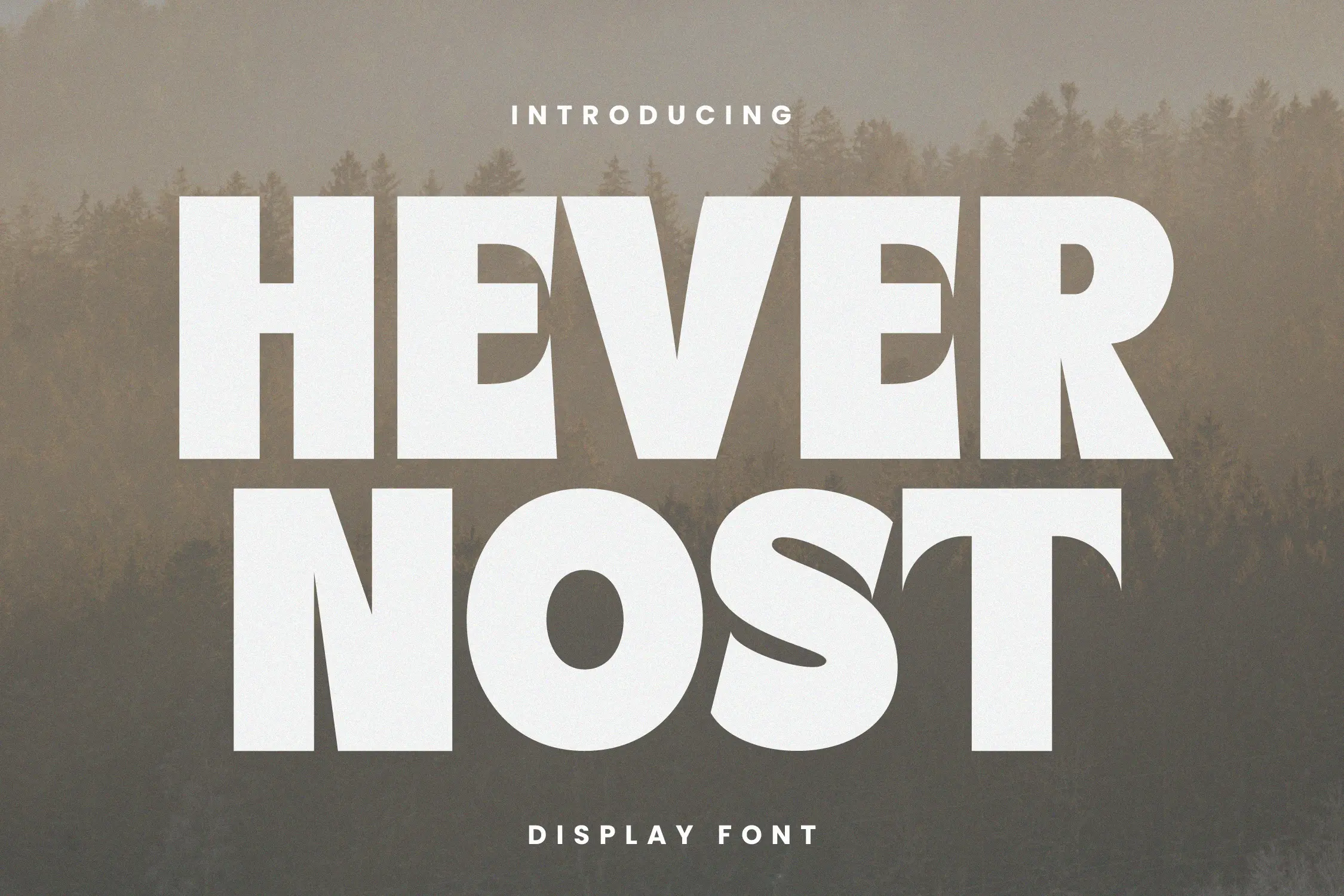
Havernost offers a mix of modernity and tradition with its classic serif structure blended with contemporary edges. It’s perfect for brands that wish to evoke a sense of craftsmanship, trust, and style. Havernost works particularly well for high-end men’s fashion, leather accessories, and urban boutique brands. It maintains professionalism without feeling overly stiff, making it a versatile font for clothing brand designs.
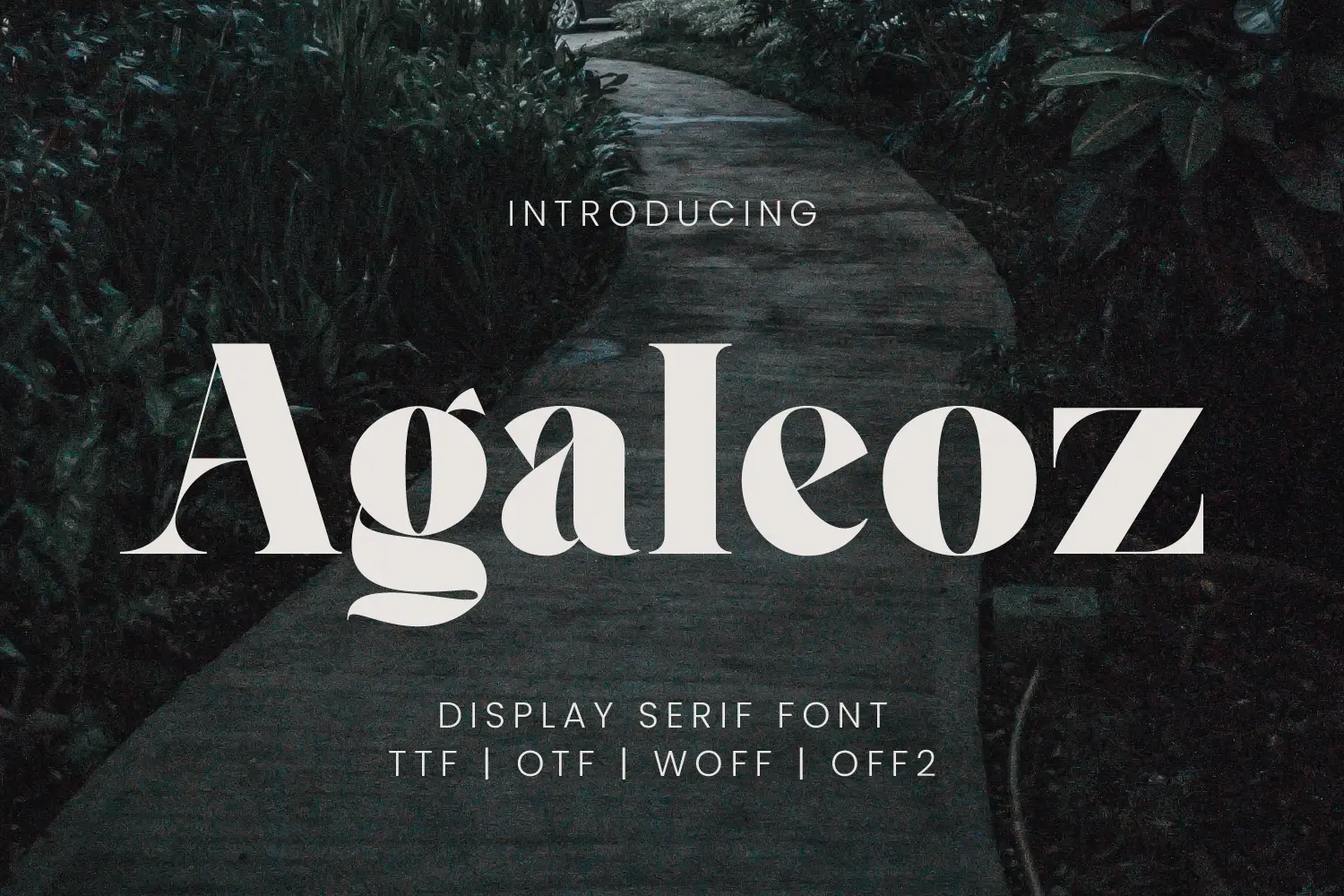
Agaleoz is a stunning display font with high contrast and unique curves, making it ideal for standout branding. Agaleoz is particularly effective for clothing brands targeting the avant-garde, street fashion, or luxury segments. The sharp character designs grab attention, ensuring your logo and labels are unforgettable. Agaleoz easily ranks among the best fonts for clothing brands streetwear markets as well.
Hadvenly Signature is a sophisticated script font that brings elegance and personal charm to any brand. Its sleek, flowing lines create a handcrafted, designer feel — making it a perfect choice for luxury apparel, boutique fashion labels, and artisanal collections. Hadvenly Signature works beautifully for brand logos, clothing tags, packaging, and promotional materials, helping convey a sense of exclusivity and artistry. It is especially effective for minimalist, high-end, or limited-edition fashion brands that aim to build a personal connection with their audience. If you’re looking for a font that adds a stylish, signature touch to your clothing brand, Hadvenly Signature is an exceptional choice.
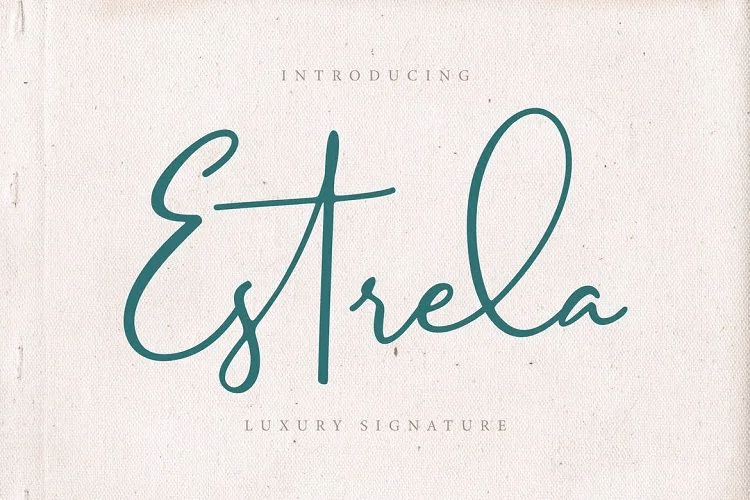
Estrela Signature is an elegant handwritten font that exudes sophistication and class. Perfect for luxury clothing brands, boutique labels, and designer collections, Estrela Signature conveys exclusivity and high-end craftsmanship. The fluid strokes and natural flow add a personal touch that resonates with audiences seeking authenticity. It’s a favorite among minimalist brands looking to blend simplicity with a hint of artistic flair. If you want a font that whispers luxury, Estrela Signature is a top choice.
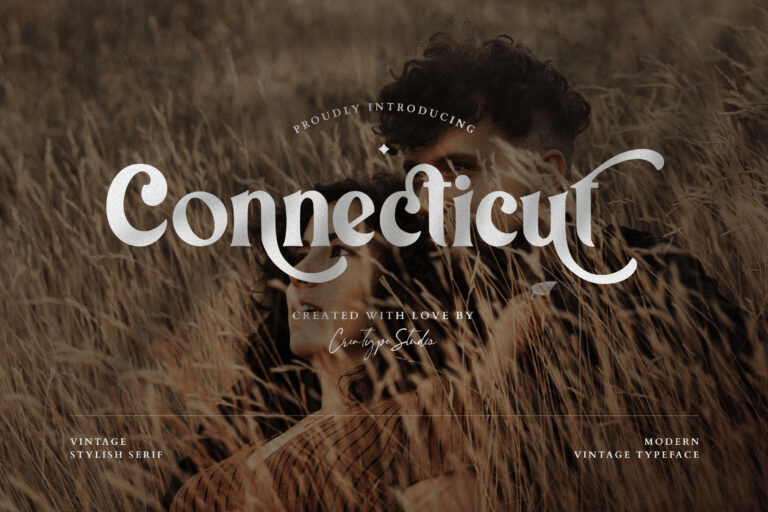
Connecticut is a stylish and bold serif font that offers a sense of vintage charm with modern refinement. Ideal for brands that target a heritage look — think denim, leather goods, or workwear lines. Connecticut’s boldness translates well onto fabric, embroidery, and hangtags, ensuring your brand stays visible and impactful. It’s an excellent pick among the best fonts for clothing brands aiming for a timeless aesthetic.
Futura is a timeless geometric sans-serif font that brands like Supreme and Nike have leaned into for bold, modern aesthetics. Its clean, minimalist lines ensure that the focus stays on the clothing itself. Futura is incredibly versatile — working across logos, tags, websites, and packaging with ease. If you’re asking, what is the best font for clothing brand visibility and versatility, Futura consistently tops the list.
Bebas Neue is a tall, bold sans-serif font popular in streetwear and sportswear branding. Its impactful uppercase letters demand attention, making it ideal for t-shirt prints, hoodie designs, and logos. Bebas Neue’s bold structure and ease of recognition make it a favorite among edgy, urban brands.
While unconventional for casual clothing brands, Garamond shines in luxury, vintage, or heritage-inspired fashion labels. Its classic serif structure adds a touch of sophistication and storytelling, perfect for premium brands targeting an older or more refined demographic.
Helvetica Neue is one of the most widely used fonts globally — and for good reason. Its clean simplicity adapts to virtually any brand style, whether minimalist streetwear, athletic apparel, or high-end fashion. Many brands that want to project modern professionalism gravitate toward Helvetica Neue for their logos and packaging.
Montserrat is a contemporary sans-serif font inspired by urban typography. It balances style and readability, making it a perfect font for clothing brand logos, website headers, and apparel labeling. With its geometric feel and youthful energy, Montserrat is a common choice for new-age fashion brands and startups.
Can signature fonts like Hadvenly Signature be used for clothing brands?
Yes, signature-style fonts like Hadvenly Signature are perfect for luxury, boutique, or artisanal clothing brands that want to project elegance, personalization, and sophistication.
What should I consider when choosing a font for my clothing brand?
You should consider brand personality, target audience, font scalability, readability across different materials, and ensuring that the font is versatile enough for logos, tags, and marketing use.